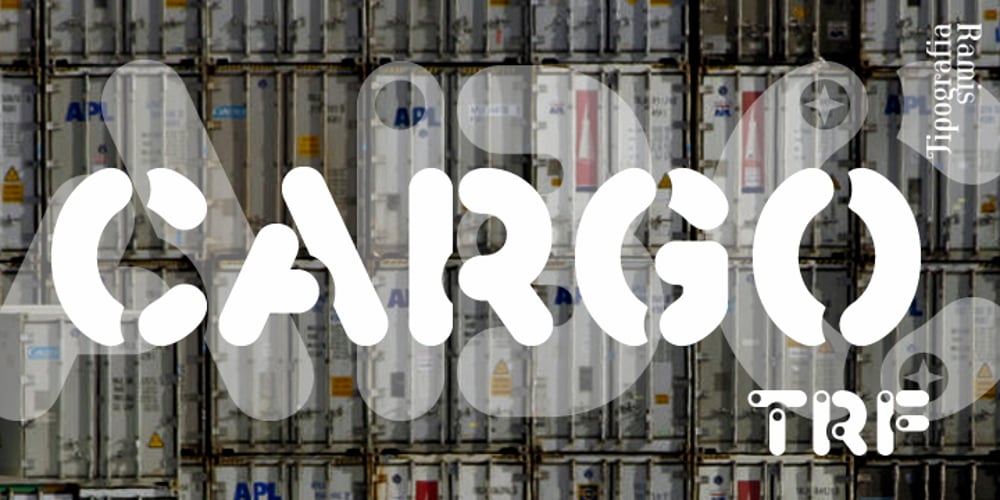
Cargo TRF Font Family was designed by Ramiz Guseynov and published by TipografiaRamis. Cargo TRF contains 3 styles and family package options. Cargo TRF is a revision of existing Cargo typeface dated 2001. The new version of Cargo consists of three styles—A (plain), B (punch-out holes) and C (screw heads). Cargo TRF is recommended for use in big sizes as a display typeface. It is available in OpenType format with Western CP1252 character set.